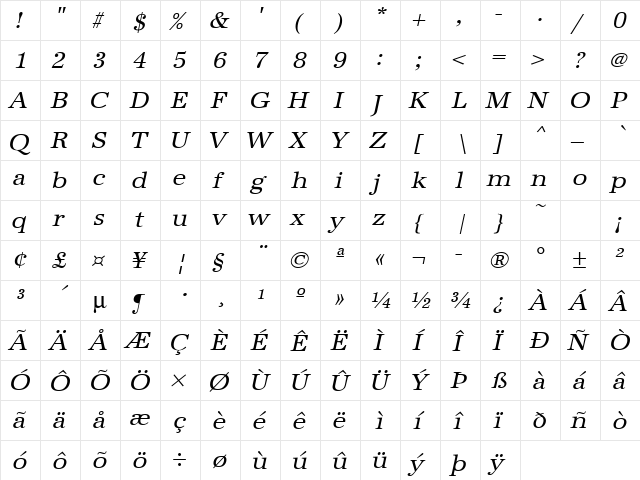
URWAntiquaTWid Oblique Font Preview
URWAntiquaTWid Oblique
Design Context for URWAntiquaTWid Typeface
URWAntiquaTWid offers clean, dependable letterforms without strong stylistic allegiance, making it a practical choice for designers who need flexibility. The slanted form adds forward momentum and visual energy.
Pro Tip: Try URWAntiquaTWid for annotation and caption copy alongside an upright companion — the contrast in angle creates a dynamic but ordered typographic system.